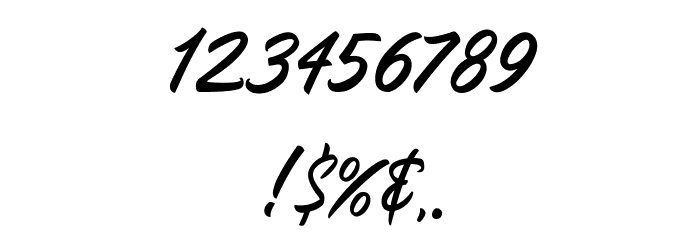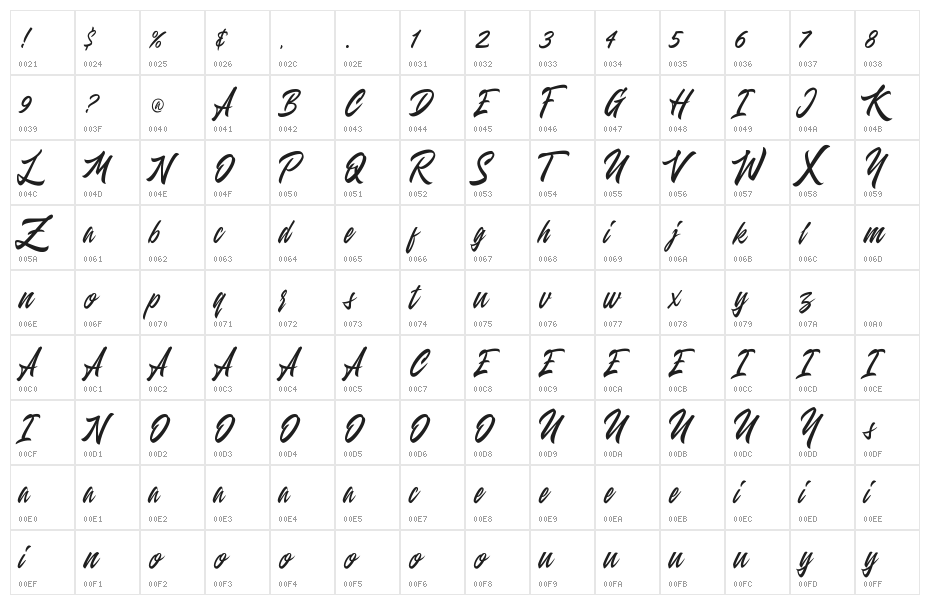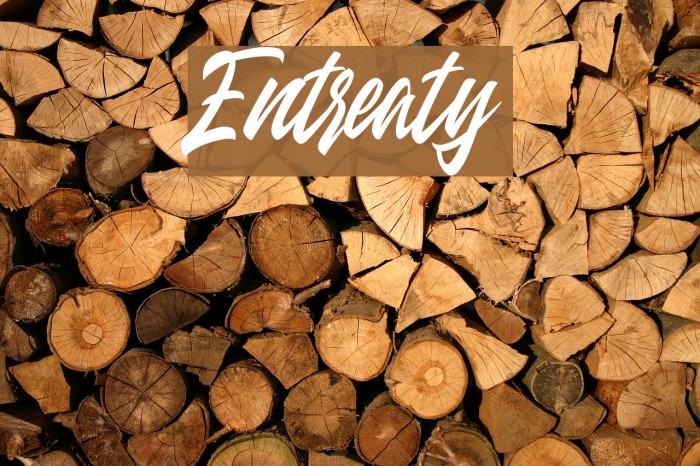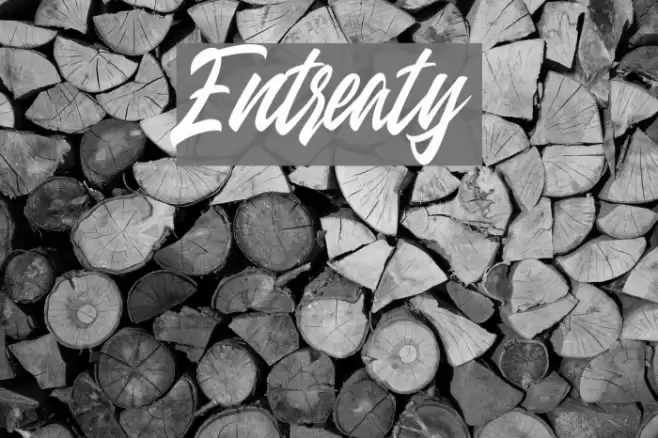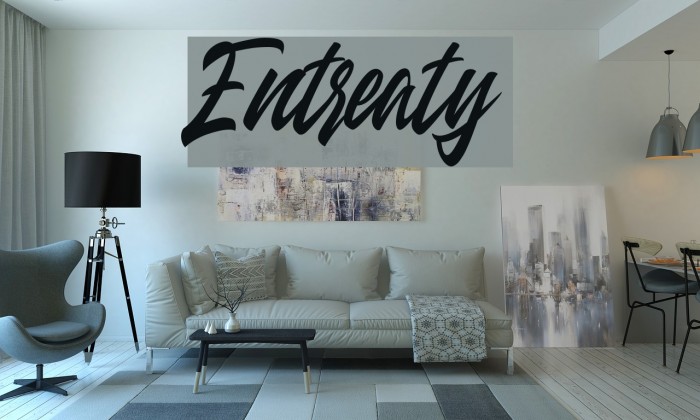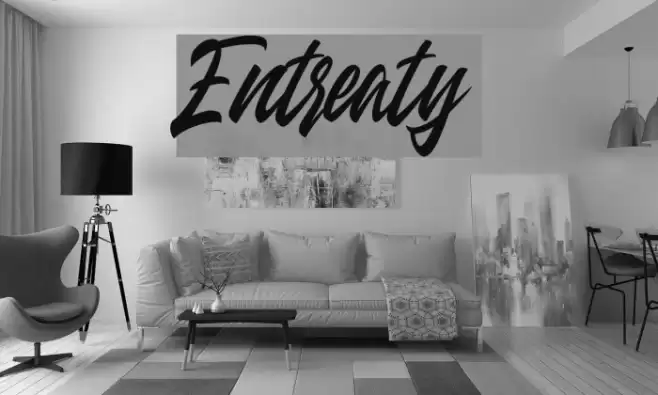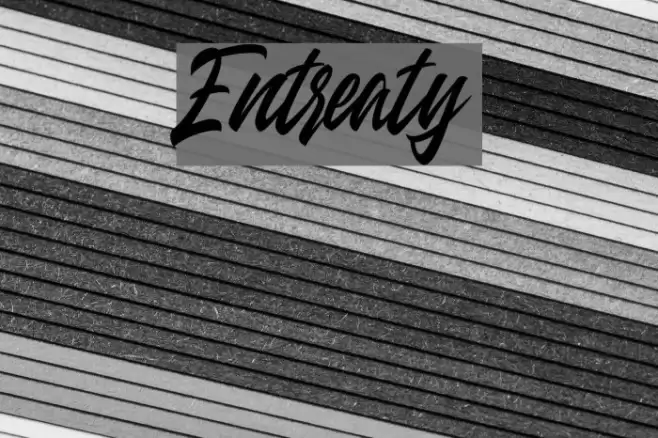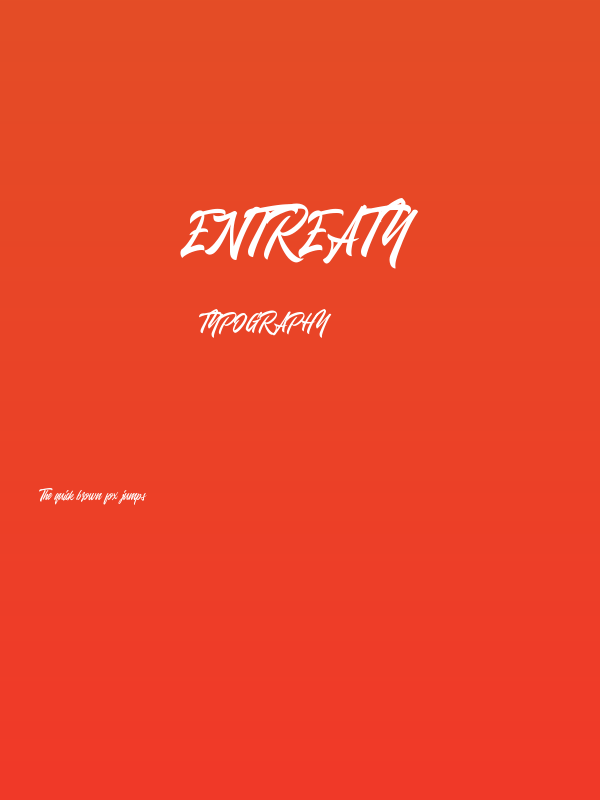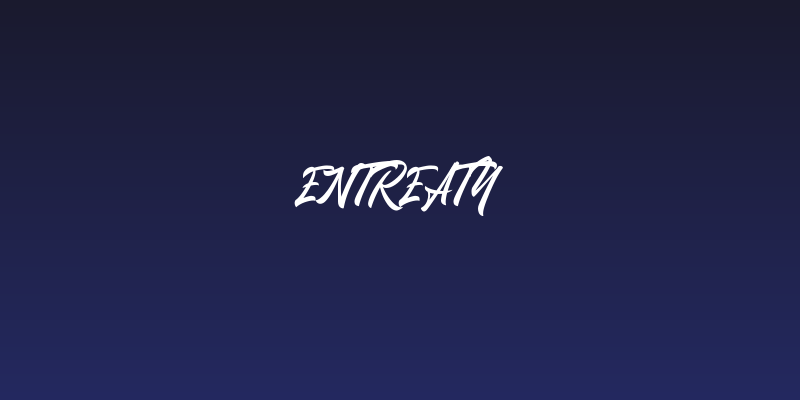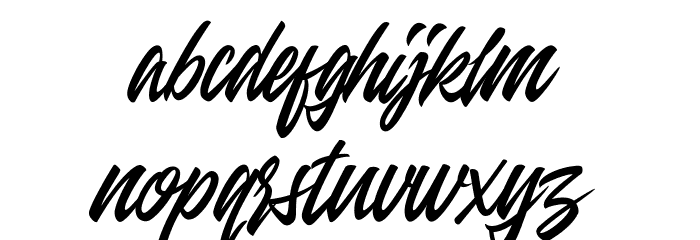
Entreaty Font
Entreaty Description
This font exudes a dynamic and energetic feel with its bold, flowing script style. The characters are elegantly connected, giving a sense of movement and fluidity. The uppercase letters are particularly striking, with sweeping curves and dramatic flourishes that add a touch of sophistication. The lowercase letters maintain a consistent rhythm, enhancing readability while retaining the font's artistic flair. Numbers and special characters are crafted with the same attention to detail, ensuring a cohesive look across all text elements. This font is ideal for projects that require a personal, handwritten touch, such as invitations, branding, or creative posters.